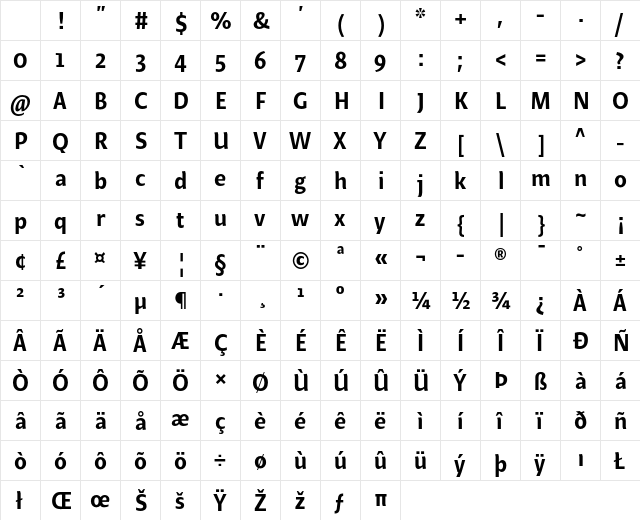
Beret LT Std Medium
Designer: Eduardo Omine
Design Context for Beret LT Std
Beret LT Std is a composed and adaptable typeface that performs quietly and consistently across a wide range of design contexts. Its slender proportions lend an understated elegance to any composition.